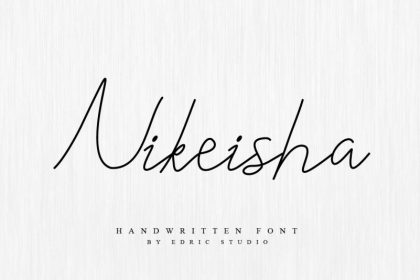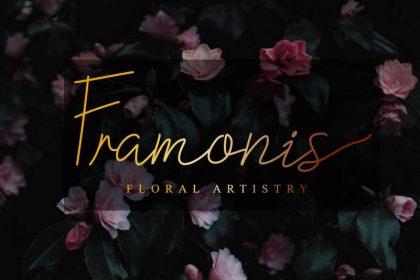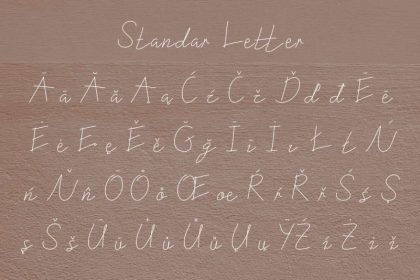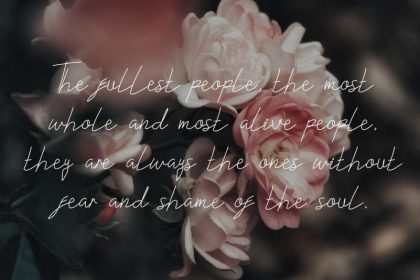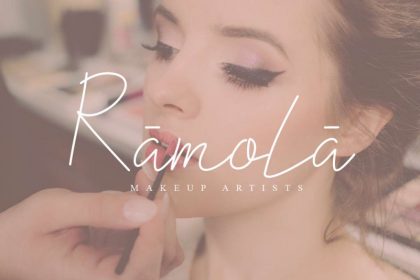
Nikeisha Cursive Font
Nikeisha is a Monoline Cursive script handwriting font, handmade here on our studio : Indonesia. This is a new one line or monoline script font with handwriting style that has unique glyhps set that is the elegant, strong, vintage, stylish, sophisticated, complex, speed and classic pen / pencil/ monoline style. Also it has full lowercase alternatives on each gplyhs.